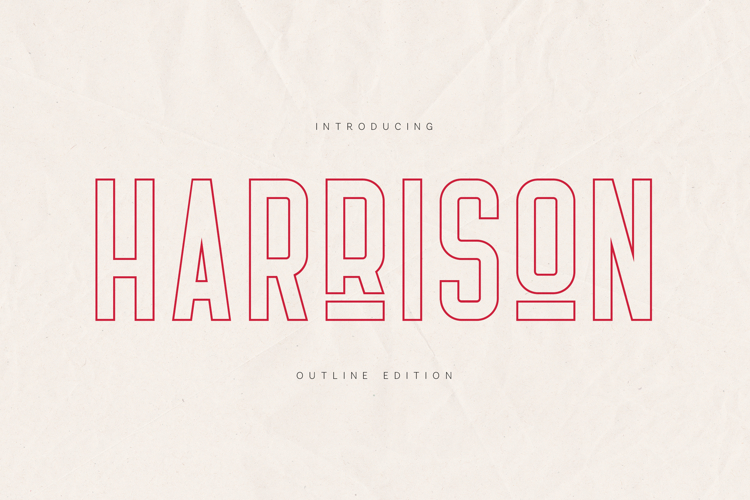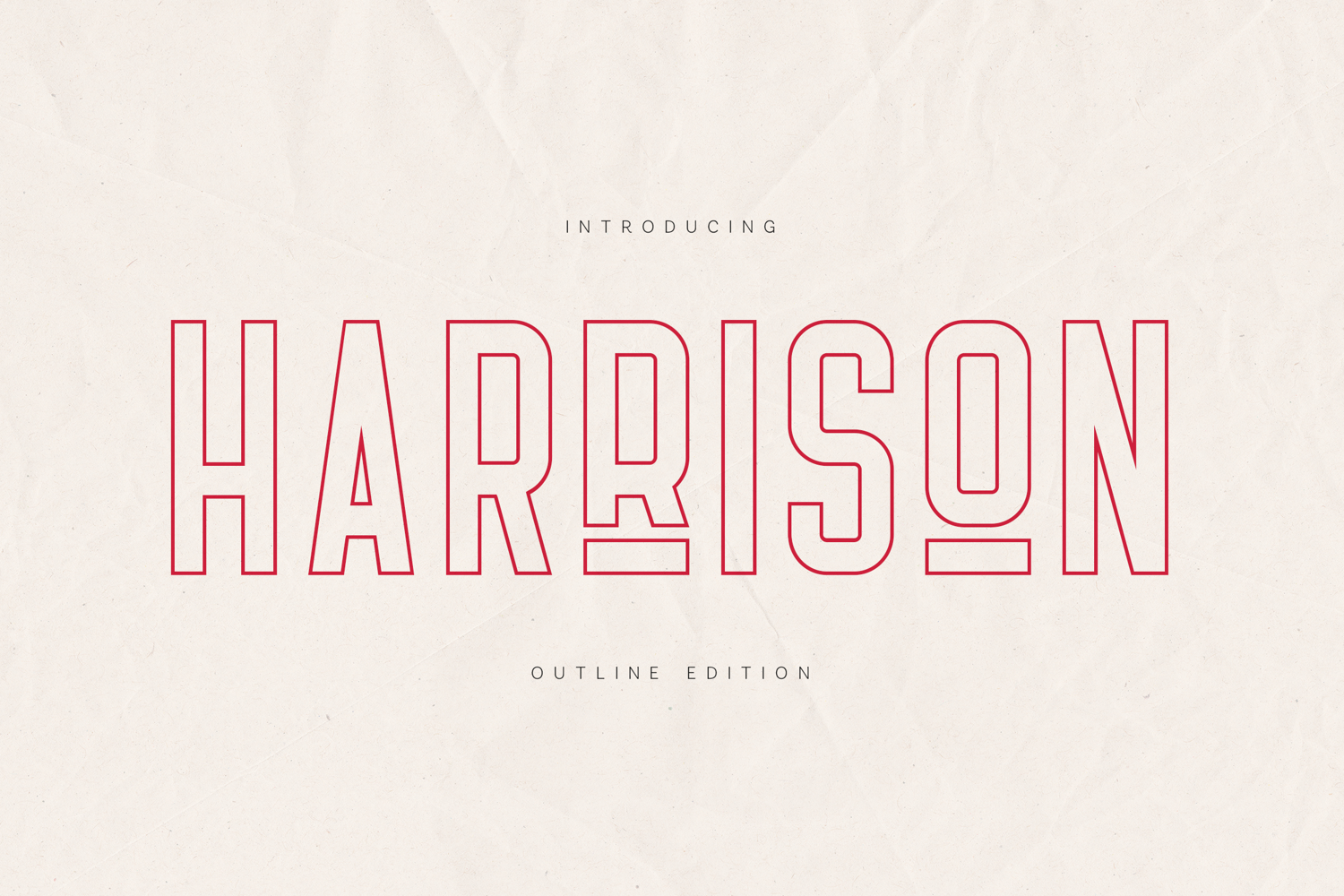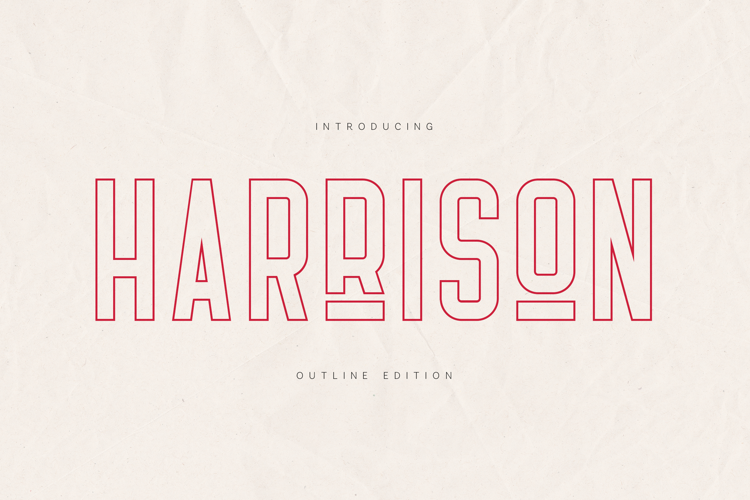
Harrison Modern Outline Display Font
Harrison is a bold modern display typeface featuring a clean outline construction and strong geometric proportions.
The font is built with tall, confident letterforms and precise structural details that create a powerful visual presence. Its double-line outline style gives the typeface a distinctive architectural feel while maintaining excellent clarity and balance.
Harrison was designed for large-scale typography where impact and readability are essential. The outlined structure allows the letters to remain bold yet lightweight, making it perfect for posters, headlines, branding systems, and contemporary graphic design.
With its strong vertical rhythm and modern industrial character, Harrison works beautifully in both minimal layouts and expressive typographic compositions.
Perfect For• Posters
• Branding
• Headlines
• Editorial layouts
• Streetwear branding
• Event graphics
• Packaging
• Modern logos